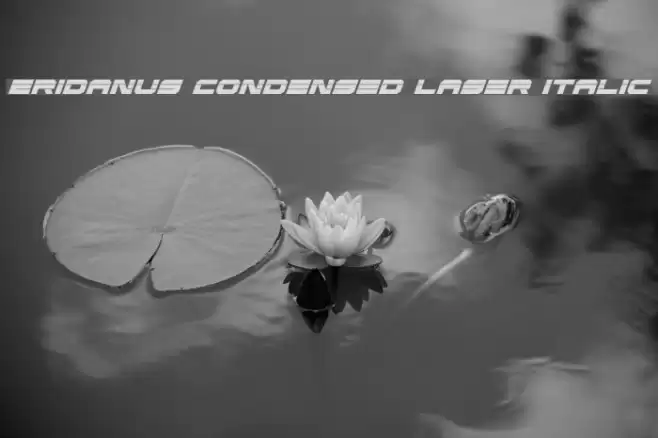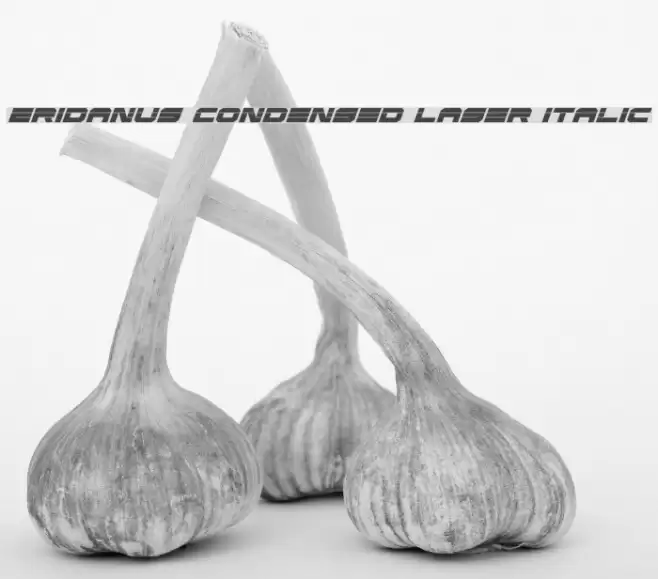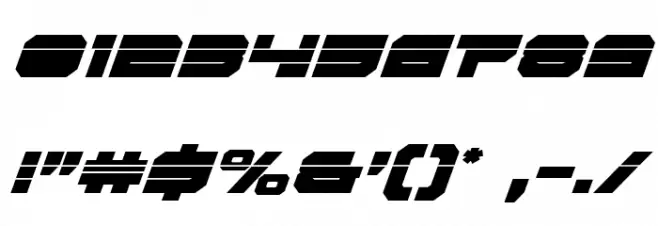
Eridanus Condensed Laser Italic Font
Eridanus Condensed Laser Italic Description
This font features a futuristic and angular design, characterized by its sharp edges and geometric shapes. The condensed style gives it a compact appearance, while the italic slant adds a dynamic and forward-moving feel. The uniform stroke width across characters contributes to a cohesive and bold look, making it suitable for attention-grabbing headlines and modern design projects. The font's unique style is reminiscent of sci-fi themes and high-tech aesthetics, making it ideal for projects that require a cutting-edge and innovative touch.
A futuristic, angular, and italicized font with a condensed style from Uncategorized fonts.
- Proposed Projects: Ideal for sci-fi themed designs, technology branding, video game titles, and futuristic posters.